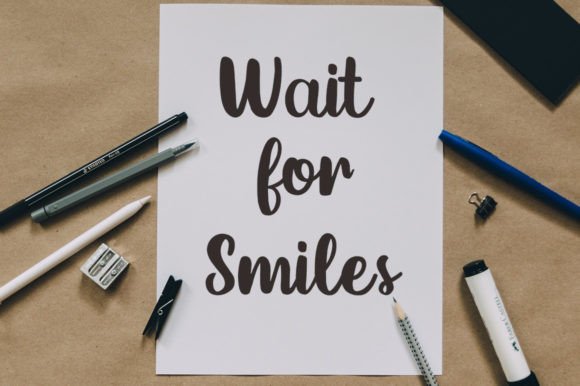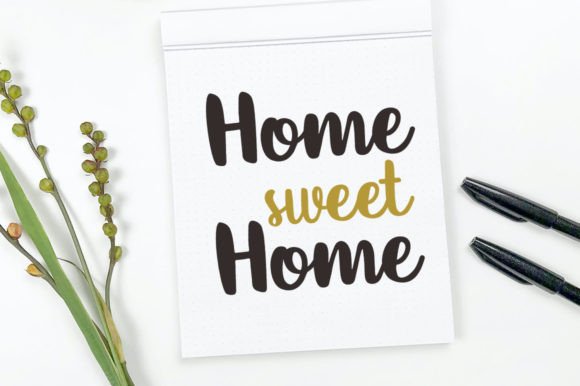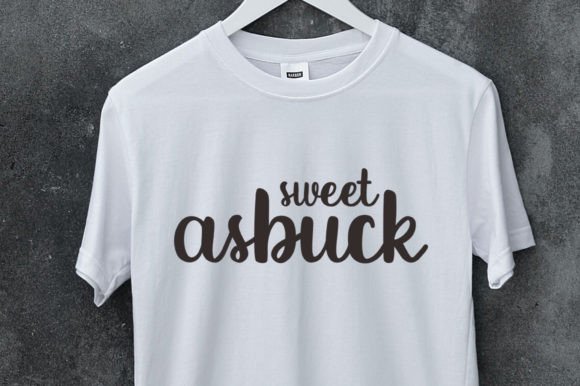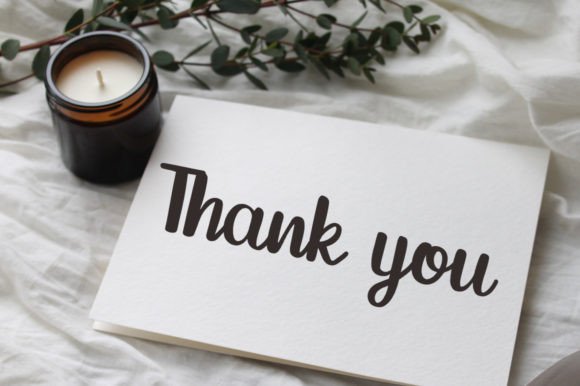
Discover the Charm of Farmhouse Font: A Fun and Friendly Handwritten Delight
Are you tired of using the same old fonts for your crafts, digital designs, presentations, and greeting cards? Look no further! Introducing Farmhouse Font, a delightful handwritten font that’s sure to become your new favorite. With its playful and friendly vibe, Farmhouse Font is perfect for adding a personal touch to any project.
Farmhouse Font is a carefully crafted handwritten font that’s designed to bring a sense of warmth and approachability to your designs. Its unique charm lies in its imperfect, yet endearing, handwritten style that’s reminiscent of a rustic farmhouse sign. Whether you’re a designer, crafter, or DIY enthusiast, Farmhouse Font is sure to capture your heart.
What Makes Farmhouse Font So Special?
So, what sets Farmhouse Font apart from other fonts? Here are just a few reasons why it’s a cut above the rest:
- Unique Character: Farmhouse Font boasts a distinct, hand-crafted look that’s full of character and personality. Its irregularities and quirks make it feel more human and less like a machine-generated font.
- Versatility: This font is incredibly versatile and can be used for a wide range of projects, from digital designs and presentations to crafts, greeting cards, and more.
- Easy to Read: Despite its handwritten nature, Farmhouse Font is surprisingly easy to read, making it perfect for body text, headings, and titles.
- Fun and Friendly: Farmhouse Font exudes a sense of fun and friendliness, making it ideal for projects that require a lighthearted and approachable tone.
Uses for Farmhouse Font
So, how can you use Farmhouse Font in your projects? The possibilities are endless! Here are a few ideas to get you started:
- Crafts: Use Farmhouse Font to add a personal touch to your handmade crafts, such as scrapbooking, card making, and DIY gifts.
- Digital Design: Add a touch of warmth and personality to your digital designs, including social media graphics, blog posts, and email newsletters.
- Presentations: Make your presentations stand out with Farmhouse Font, perfect for titles, headings, and bullet points.
- Greeting Cards: Create beautiful, one-of-a-kind greeting cards for special occasions, such as birthdays, weddings, and holidays.
To get the most out of Farmhouse Font, here are a few tips to keep in mind:
- Mix and Match: Combine Farmhouse Font with other fonts to create a unique and visually appealing design.
- Experiment with Colors: Play around with different colors and textures to add depth and interest to your designs.
- Keep it Simple: Don’t be afraid to keep things simple and use Farmhouse Font as a standalone font for a clean and elegant look.
In conclusion, Farmhouse Font is a delightful handwritten font that’s sure to become your new go-to font for all your design needs. Its unique character, versatility, and ease of use make it perfect for designers, crafters, and DIY enthusiasts alike. So why not give Farmhouse Font a try and see the difference it can make in your designs?
With its fun and friendly vibe, Farmhouse Font is the perfect addition to any project. Whether you’re looking to add a personal touch to your crafts, digital designs, presentations, or greeting cards, this font is sure to deliver. So go ahead, get creative, and make Farmhouse Font your new favorite font!